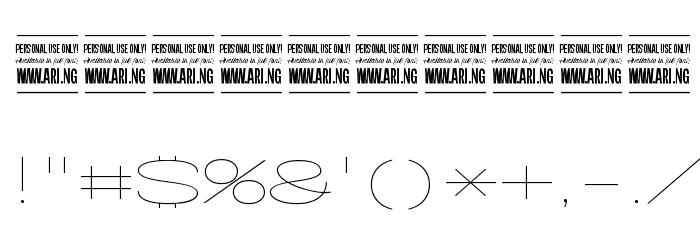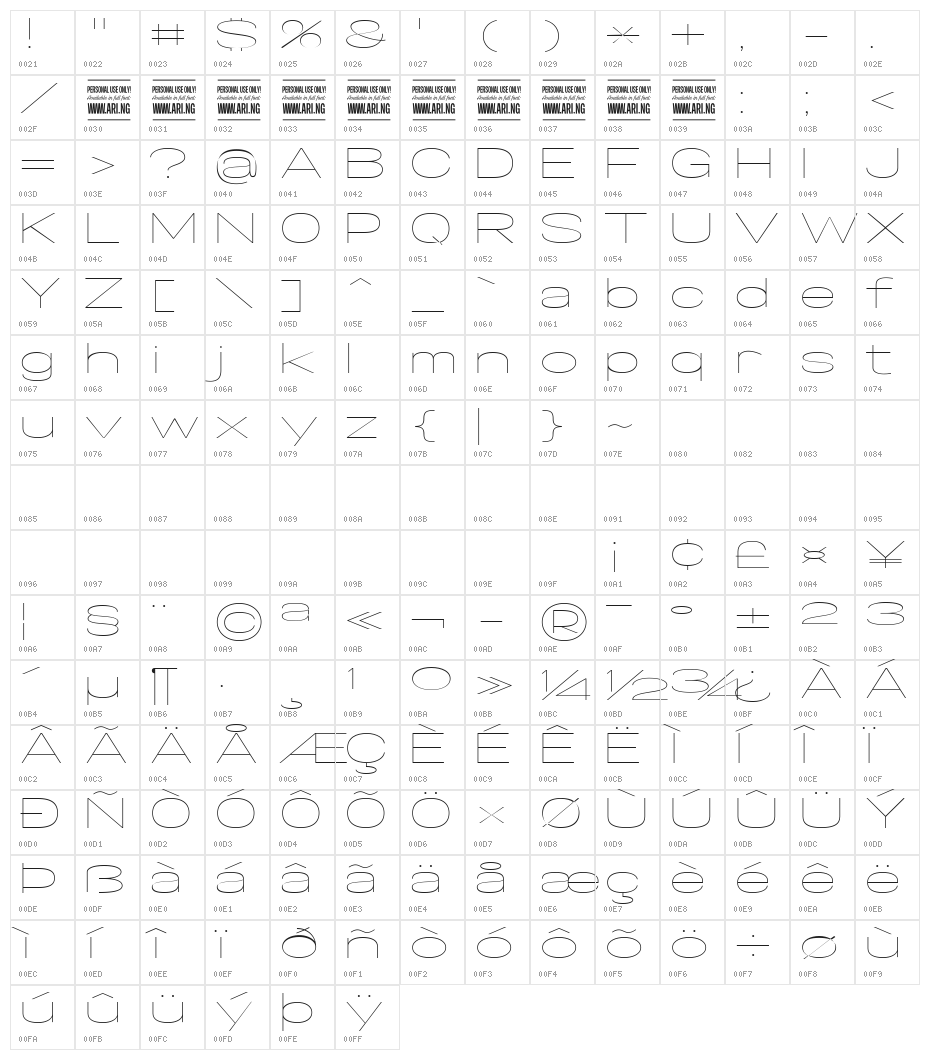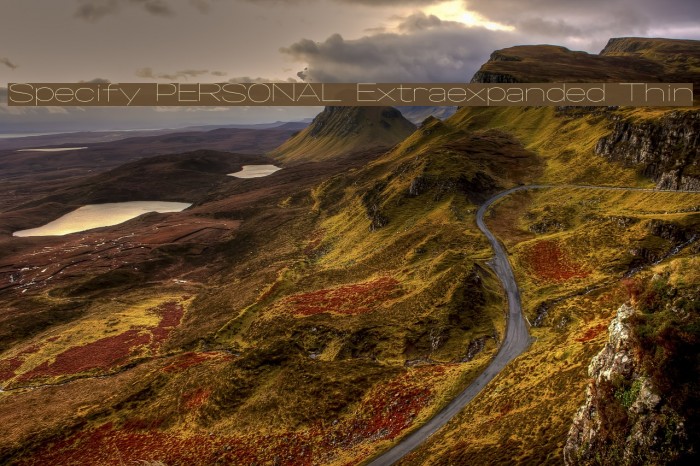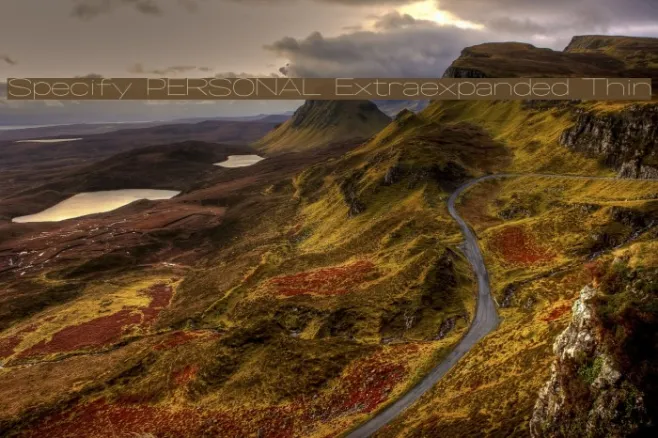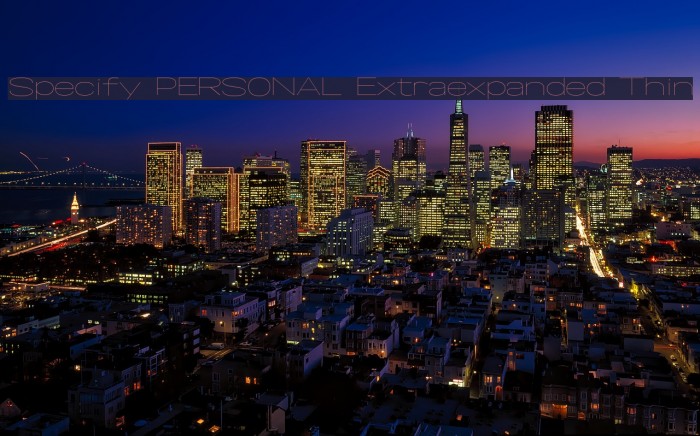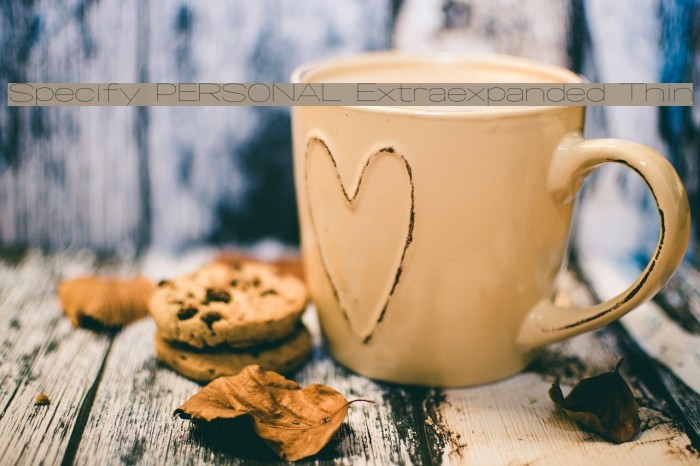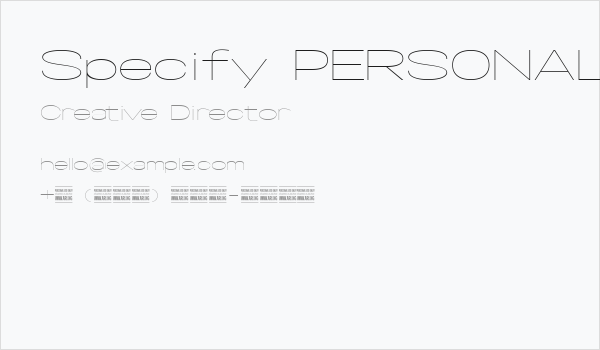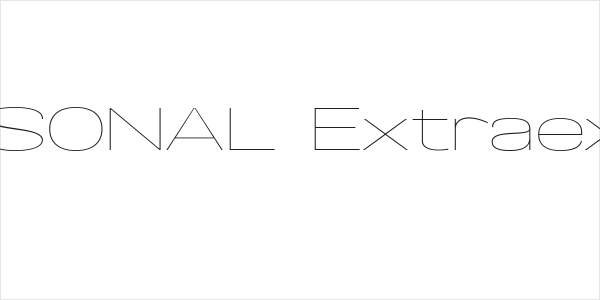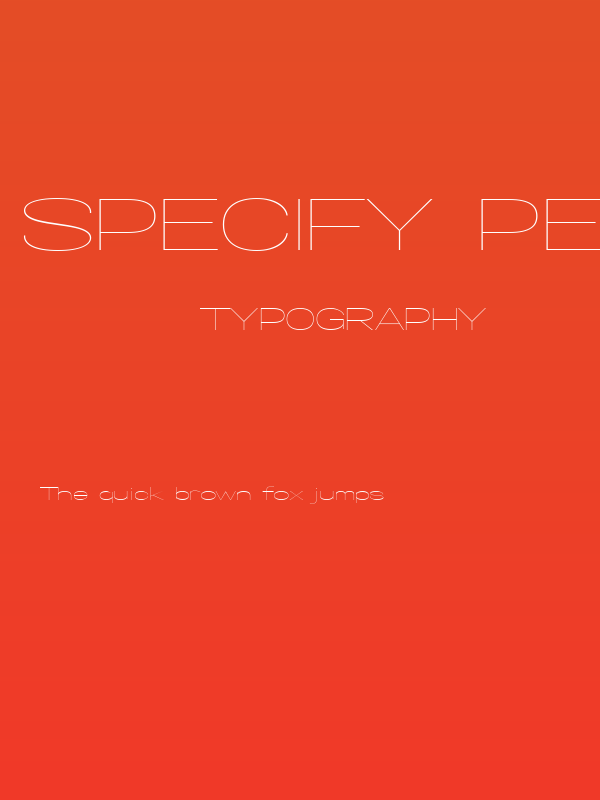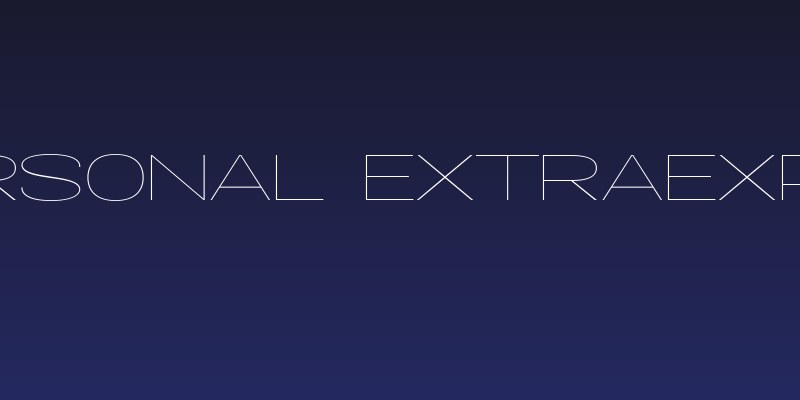
Specify PERSONAL Extraexpanded Thin Font
Specify PERSONAL Extraexpanded Thin Description
This font features an ultra-thin, extra-expanded style that emphasizes minimalism and modernity. The characters are elongated with a wide stance, providing a spacious and airy feel. The lines are clean and precise, with a geometric influence that adds a contemporary touch. The uppercase and lowercase letters maintain a consistent height, contributing to a harmonious and balanced appearance. The numerals and special characters follow the same design principles, ensuring uniformity across all elements. This font is ideal for projects that require a sleek and sophisticated look.
| Proposed Projects | Ideal for modern branding, minimalist posters, sleek website headers, and contemporary editorial design. |